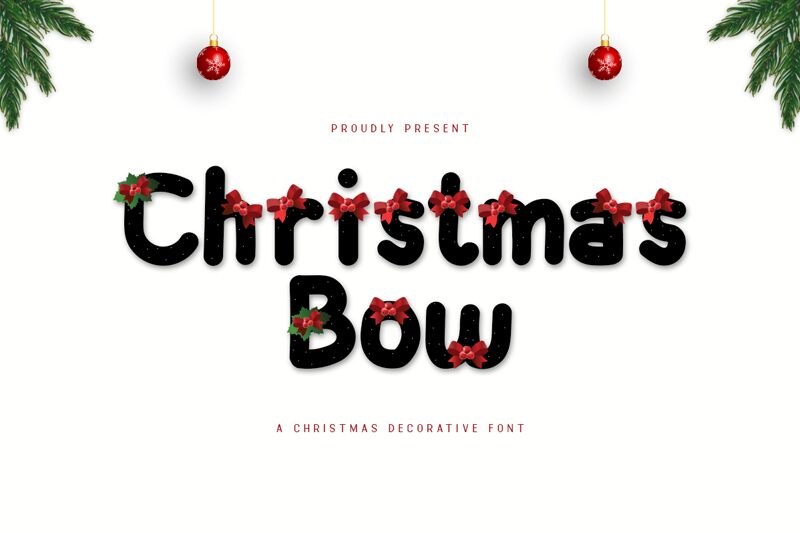
Christmas Bow font by Kong Font is a free holiday font characterized by festive elements and decorative style. A reminiscence of Christmas ornaments and adorned letters, this typeface offers a joyful and jovial spirit. Every letter comes in an embellished appearance, adding liveliness and cheerfulness to this one-of-a-kind set. You can never go wrong with this seasonal free font that can be picked up and used for free by all designers.
Designers and creatives can evoke ultimate celebratory and holiday vibes by incorporating Christmas Bow into their projects. Such projects include postcards, invitations, posters, social media posts, branding, marketing, packaging, and much more.